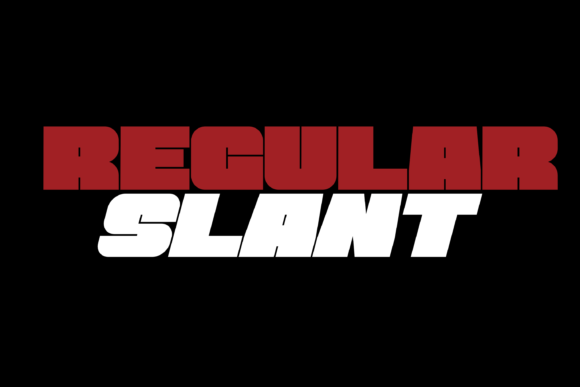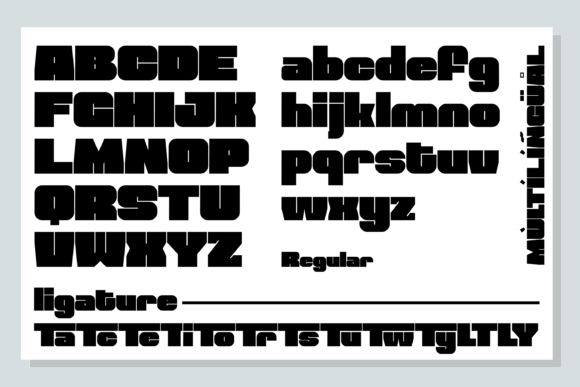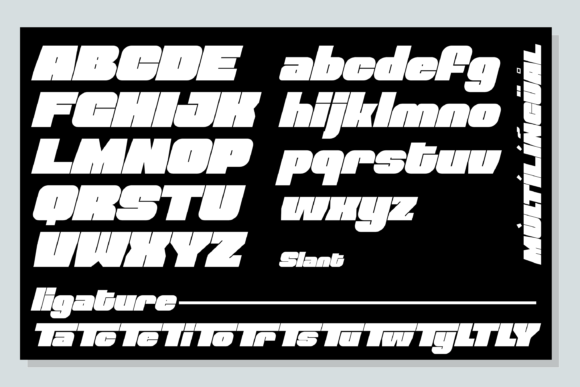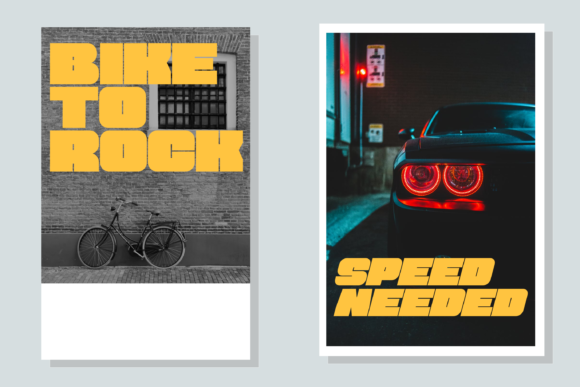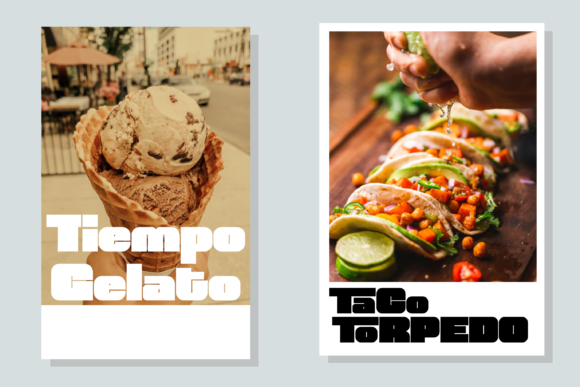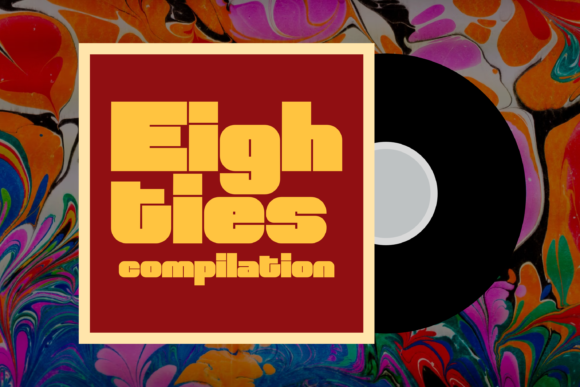
Introduction to Rock Radio Font
Have you ever been working on a creative project, pouring your heart and soul into a design, and then BAM! You stumble upon the perfect font that brings everything together? That’s exactly what happened to many designers when they discovered the Rock Radio Font. This bold sans serif font has become a go-to choice for designers looking to add some excitement to their projects.
With its regular and slant styles, Rock Radio Font offers a level of versatility that’s hard to resist. And with its PUA encoded features, designers can access a wide range of ligatures and glyphs with ease, making it a valuable resource for any design project. Whether you’re working on a poster, book cover, or social media campaign, Rock Radio Font is sure to bring a level of high quality and sophistication that’s hard to match.
Key Features of Rock Radio Font
- High-quality design resource for creative projects, offering a unique and edgy look.
- Perfect for music-related projects, logos, posters, and other creative endeavors that require a bold and eye-catching font.
Honest Review: Rock Radio Font
I recently stumbled upon the Rock Radio Font, and I must say it’s a great addition to any design resource library. The font is available for a free download, which is always a plus. The moment I saw it, I knew it would be perfect for a creative project that needed a touch of edginess.
What works well with this font is its high quality and versatility. It’s perfect for creating attention-grabbing headings and titles, and the transparent background makes it easy to use with any design element. The font’s bold and rugged feel is reminiscent of classic rock music, which is exactly what I was going for with my project.
Here are some of the features that I love about the Rock Radio Font:
- High quality design that’s perfect for creative projects
- Transparent background for easy use with design elements
- Bold and rugged feel that’s perfect for attention-grabbing headings
- Only comes in a single weight, which may limit its versatility
- Not suitable for fine print or small text due to its bold design
Overall, I’m really impressed with the Rock Radio Font. It’s a great addition to any design resource library, and I’ll definitely be using it again in the future. With its high quality design and free download, it’s a must-have for any designer looking to add a touch of edginess to their creative projects.
Tips for Getting the Most Out of Rock Radio Font
Use the Rock Radio Font consistently throughout your design to create a cohesive look. Experiment with different font sizes and styles to add visual interest. Don’t forget to pair the Rock Radio Font with other high-quality design resources to create a professional and engaging visual identity.
Common Use Cases for Rock Radio Font
The Rock Radio Font is ideal for music-related designs, such as album artwork, concert posters, and music festival branding. It’s also suitable for creating a bold and edgy look for fashion and lifestyle designs, including apparel, accessories, and advertising materials.